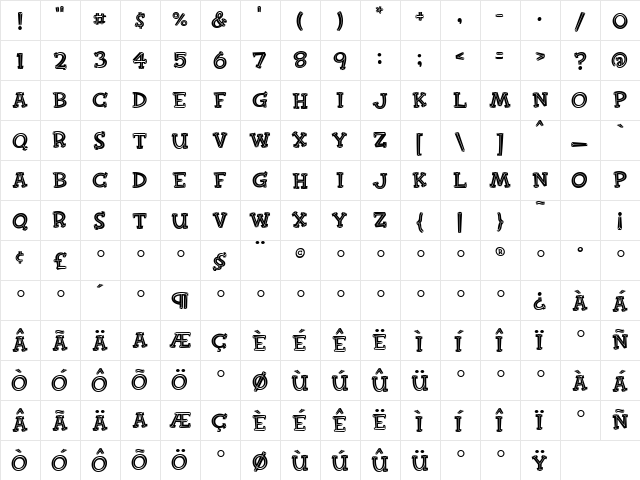
FinkBold Regular
Design Context for FinkBold Typeface
FinkBold is a composed and adaptable typeface that performs quietly and consistently across a wide range of design contexts. Its bold stroke weight gives it real presence on the page.